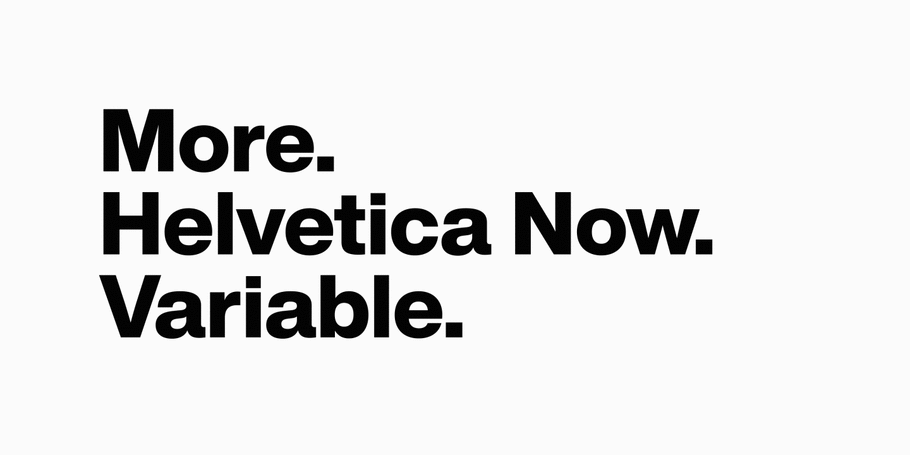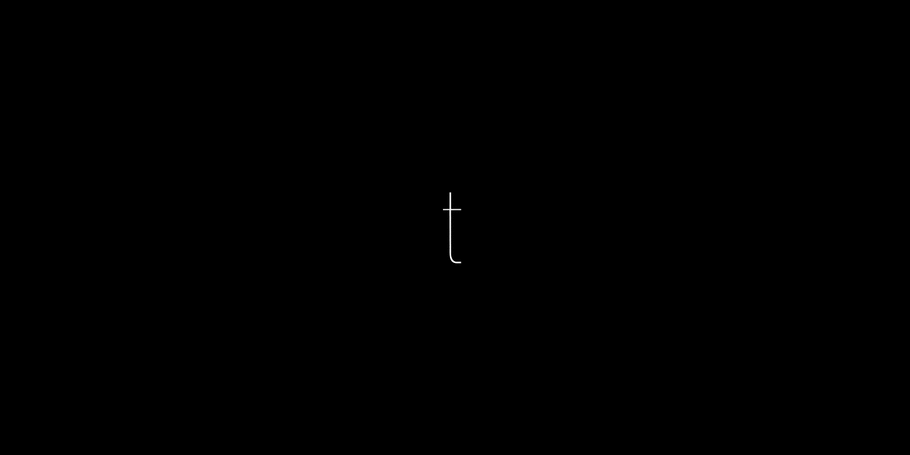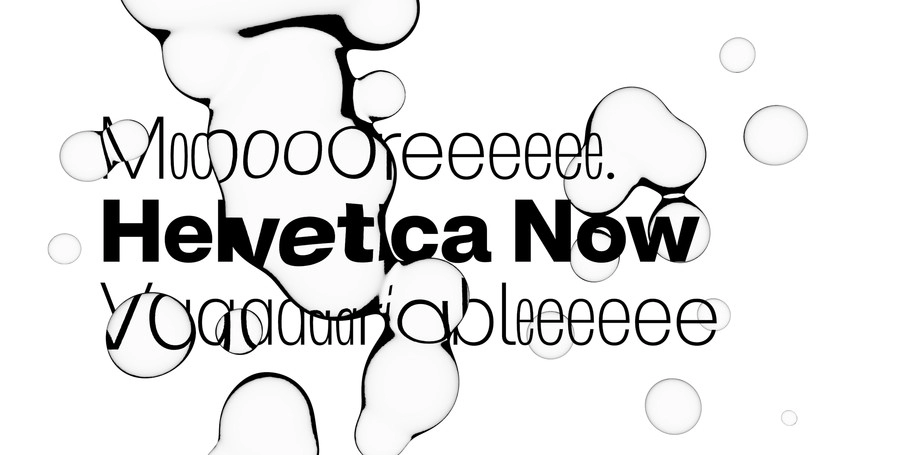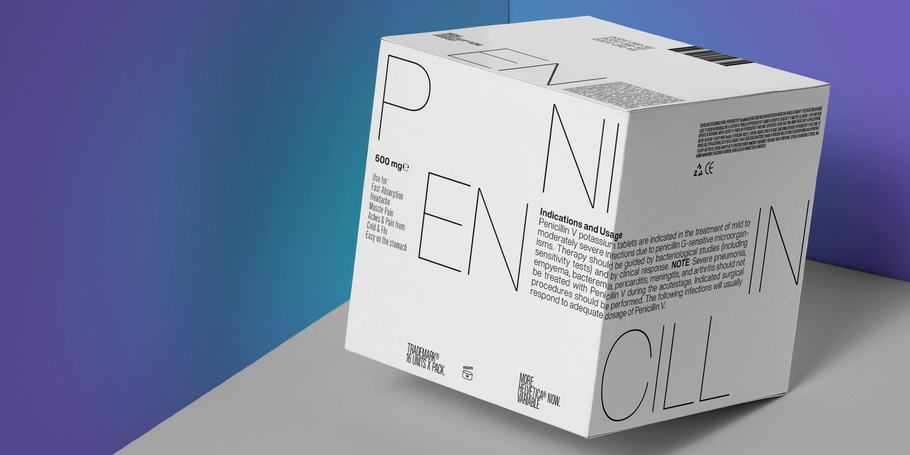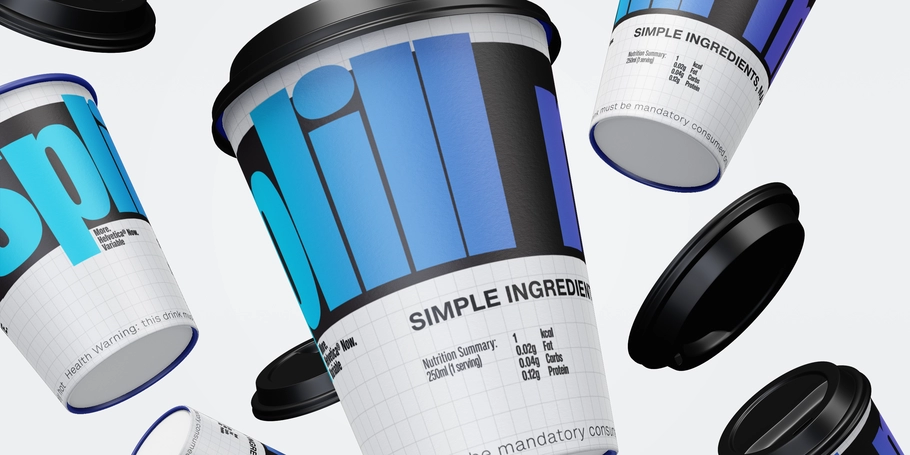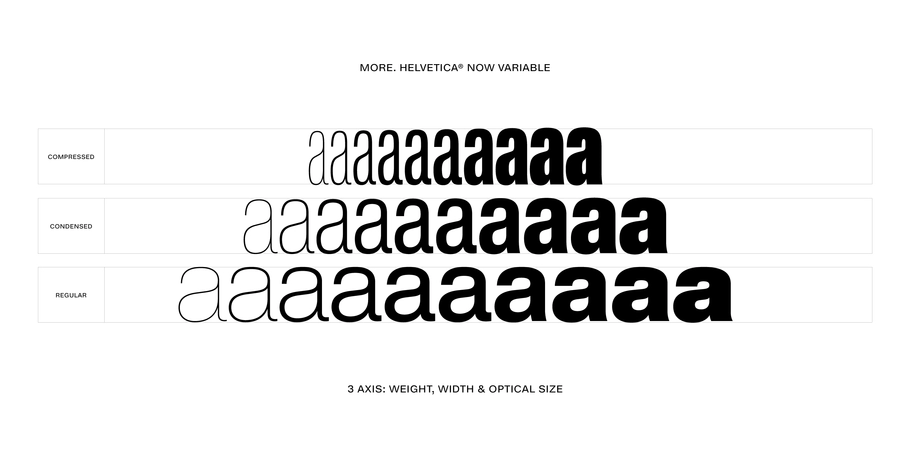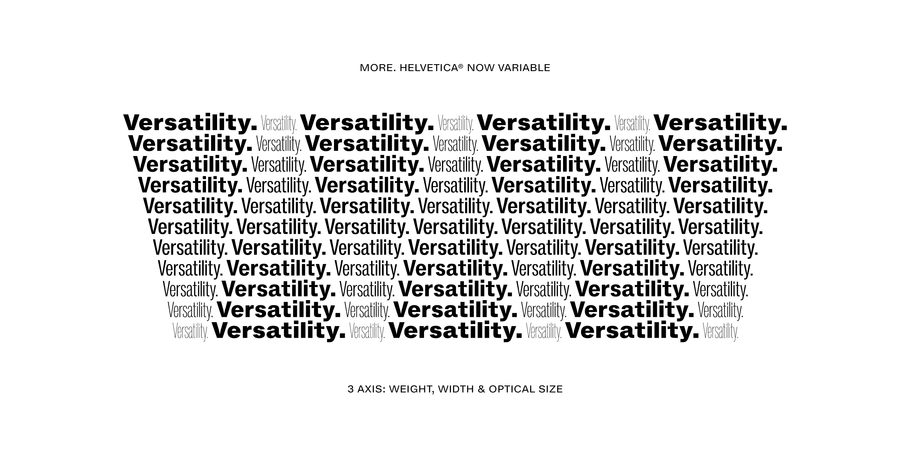
More of everything, for everyone. Introducing Helvetica Now Variable.
“ Variable typefaces generally—and Helvetica Now Variable specifically—will reshape the concept of what the word ‘typeface’ means. ”
Charles Nix.
Helvetica Now Variable, new from the Monotype Studio, offers more than a million new Helvetica styles in one state-of-the-art font file, allowing you to create infinite shades of expression, incredible typographic animations, and ultra-refined typography.
Two years have passed since the Monotype Studio released Helvetica Now, a loving and long overdue update of Max Miedinger’s timeless, omnipresent 1957 design. That project reimagined Helvetica for a world that neither Miedinger nor the team behind the early 80’s redesign Neue Helvetica could have planned for: A world that demands crisp legibility on tiny screens, enormous LED billboards, and countless touchpoints between.
Well, guess what? We weren’t done.
If Helvetica Now brought Miedinger’s design into our digital present, Helvetica Now Variable launches it forward into a wide open future. It is an evolutionary leap for a typeface that has always been a step ahead of its time.
Today’s consumers expect distinct, dynamic, personalized branding and lightning-fast web load times wherever they are and on whatever device they’re using. Helvetica Now Variable is built to meet that demand—one font file with millions of styles that’s magically fast, awesomely powerful, and surprisingly fun. (Yes, millions—the three-axes variable design space offers 1.235 million variations, to be precise.)
Unlike conventional font formats that require each style within a family to be a separate file, Variable fonts package all of the necessary DNA for every style into one tidy package. And because that one file contains the family DNA, designers can move through the entire sequence, mixing, matching, and customizing variations on the family theme. It’s now possible to dial in a hyper-specific variation or even animate the movement from one state, weight, width, or size to the next, all from a file that’s a fraction of the size of the combined static fonts.
“This is Helvetica at the dawn of a new era in design and typography,” says Monotype Creative Director Charles Nix. “Variable typefaces generally—and Helvetica Now Variable specifically—will reshape the concept of what the word ‘typeface’ means.”
Helvetica Now Variable also includes brand new Compressed and Condensed widths, which give designers and brands a vast number of styles to choose from when added to the existing weight and optical size variations (144 “bookmarked” instances). This builds on the additions of optical sizes and expanded character sets in the 2019 release, resulting in the most complete and refined expression of Helvetica ever put forward.
Two years ago when we released Helvetica Now, we said it was “everything we love about Helvetica and everything we need for typography today.” It wasn’t a “revival” or a “restoration,” but a statement about Helvetica’s place in a changed and changing world.
Helvetica Now Variable is not merely a continuation of that project—it splits the Helvetica Now atom and unlocks untold depth, dimension, and possibility. It offers more Helvetica than ever before. More freedom to experiment. More avenues for expression. More power to create memorable experiences.
“Helvetica Now Variable invites designers to paint with type,” Nix says. “To unlock new modes of typographic expression—to reach beyond what previous generations of typographers thought was possible.”